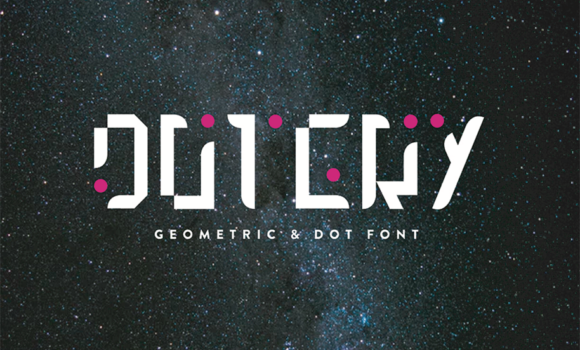
dotery
Dotery Font – Free Download Introduction to Dotery Font Dotery is an interesting decorative font. 📸 Preview Gallery 6 images 📌 Product Name Dotery Font 👤 Author Fiona Poupeau 📂 Category Explore ⬇️ Download Dotery Font FREE Free Download •